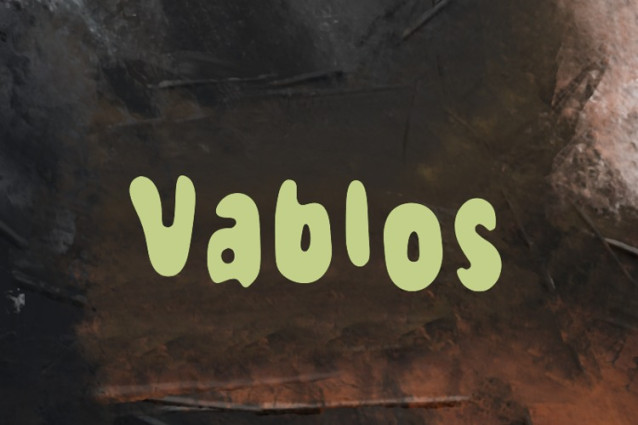
Vablos Display Font
Vablos Display Font is a chunky, comic, and cartoon display font. With its neat and joyful personality, this font will enhance any project you wish to create!